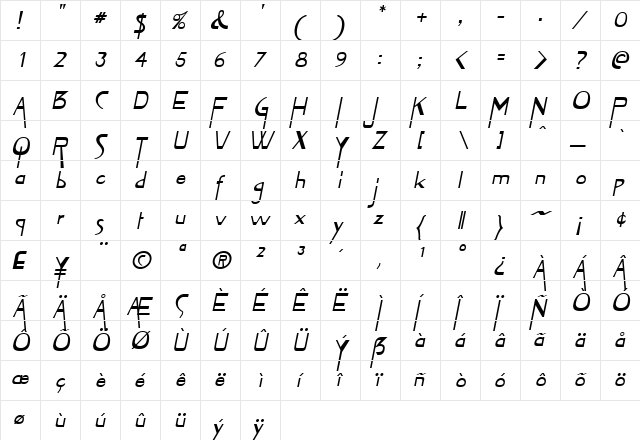
Zyme Oblique Font Preview
Zyme Oblique
Design Context for Zyme Typeface
Zyme takes a measured approach to typography — its balanced proportions and neutral character make it a reliable workhorse for both digital and print work. Its italic angle brings a sense of urgency and motion to the letterforms.